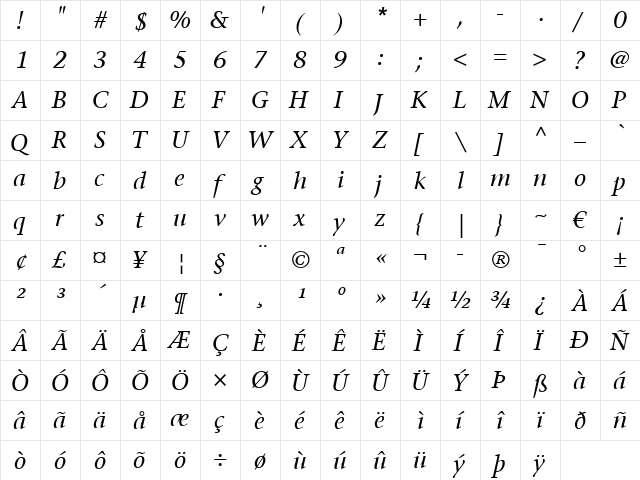
StoneSerif LT Italic Font Preview
Design Context for StoneSerif LT Typeface
StoneSerif LT carries the refined structure of traditional serif typography, with bracketed terminals and considered proportions that communicate credibility and craft. The dynamic lean of this cut emphasises speed and emphasis in any layout. Its slender proportions lend an understated elegance to any composition.